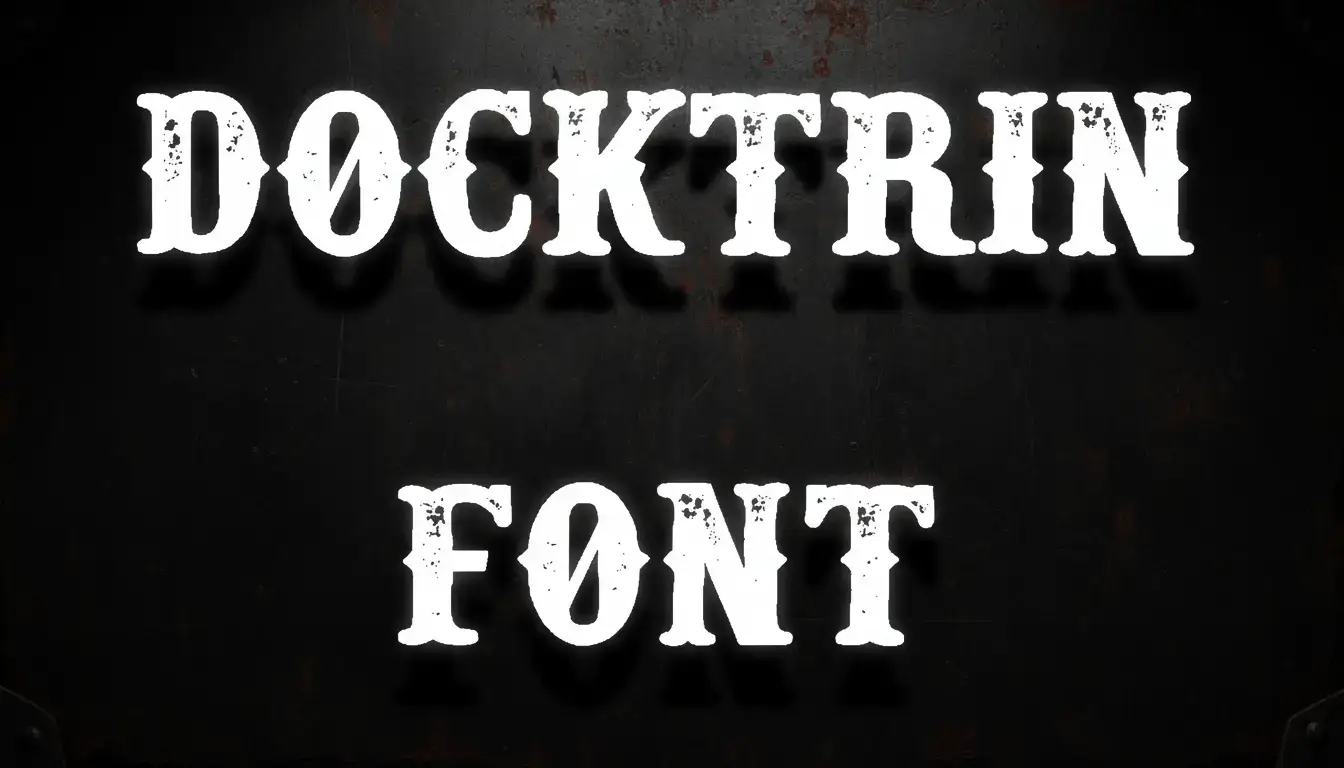
Docktrin Font
Docktrin
Docktrin is a Western font designed by Clement Nicolle. It has the bold, wood-type look of Wild West wanted posters and saloon signs. It's a free download, and you can try it with your own text in the preview above first.
What You Can Type With Docktrin
You get every letter from A to Z in both cases and all the numbers from 0 to 9, which means Docktrin can handle full sentences, dates and prices. Everyday marks like &, !, ? and @ are there too. Thanks to its accented letters, it also works for Spanish, French, Portuguese and Italian, not just English.
Where Docktrin Works Best
Designers usually reach for fonts like Docktrin when they're making rodeo posters, saloon signs and country music flyers. Try it in brown, rust or cream on a paper texture for the full old-west look.
What fonts pair well with Docktrin?
A sturdy slab serif or a simple serif works well for the smaller text.